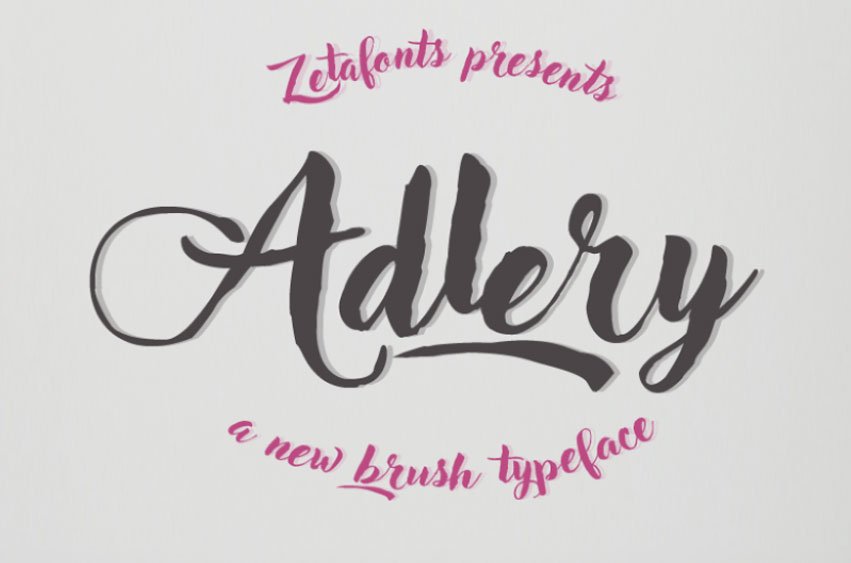
Adlery Font was drawn by Zetafonts as a hand-painted brush type font family for display use, It was created with. The font also includes the upper-case letters that change when typing and it reduces the dimensions to an optimal medium size for easy reading.
Besides, Adlery has upper case letters and lower case letters that are different while writing in order to eliminate the issue of similar looking letters but completely different spelling.